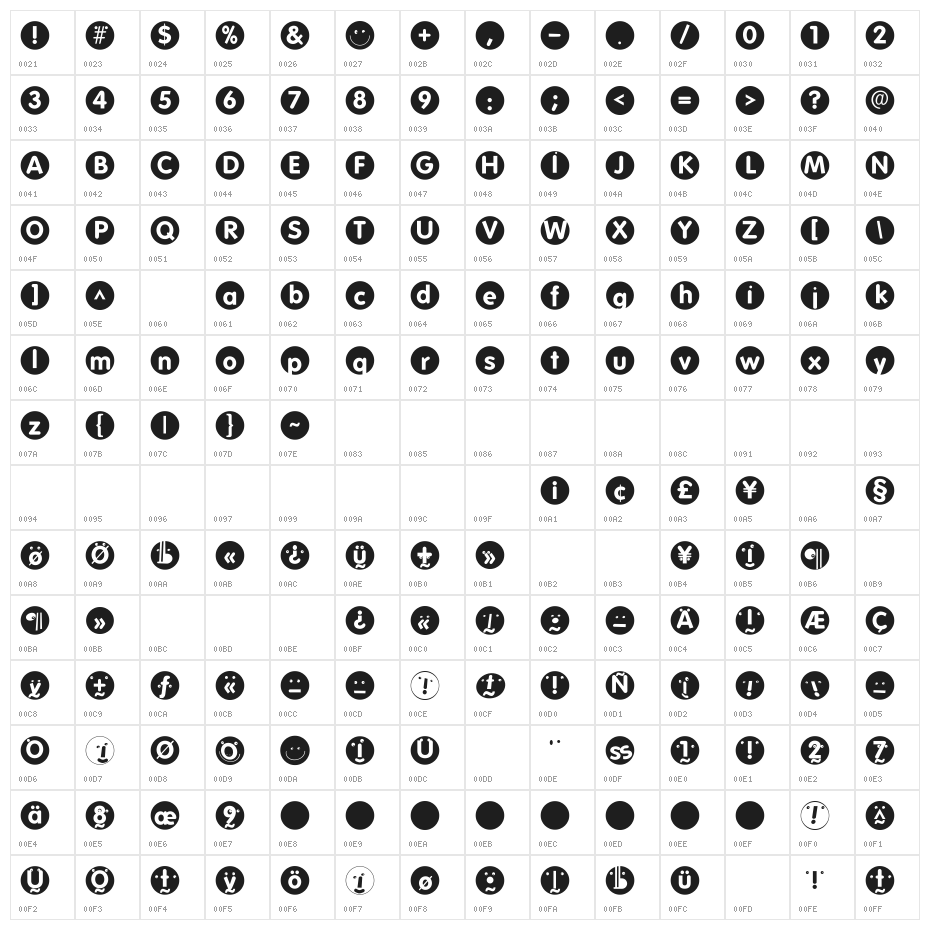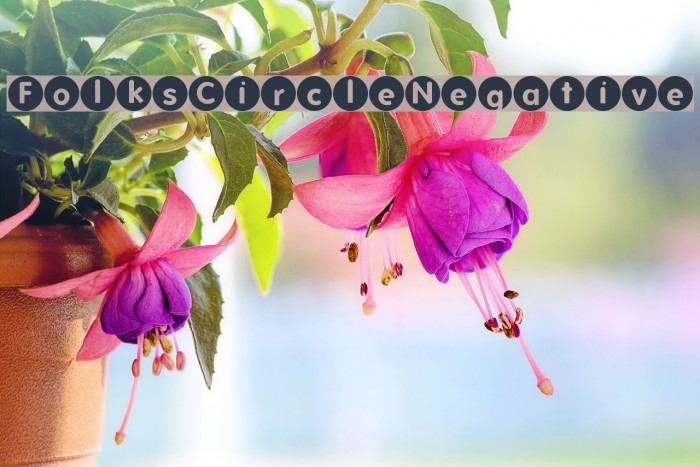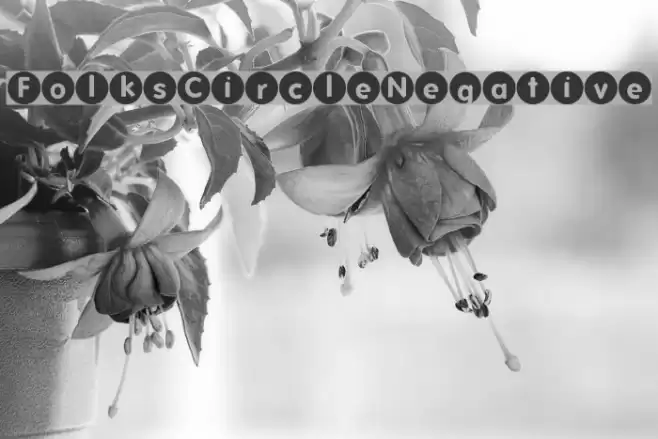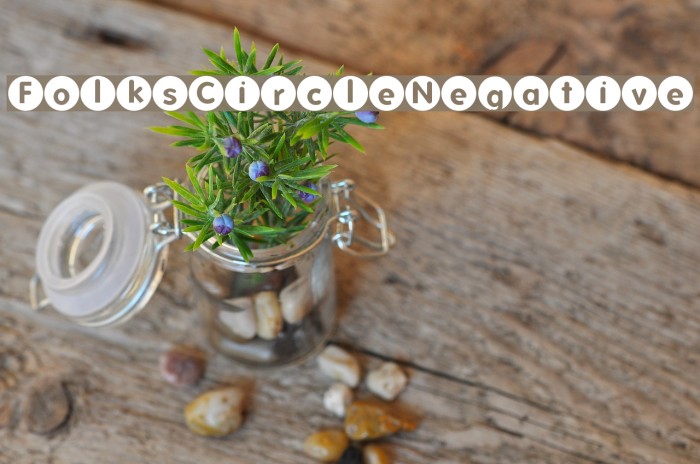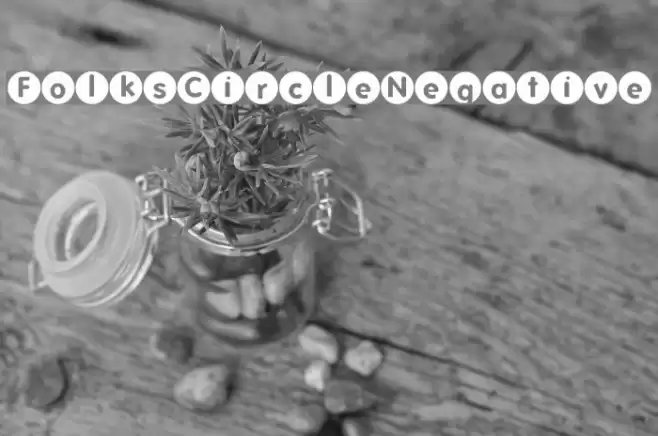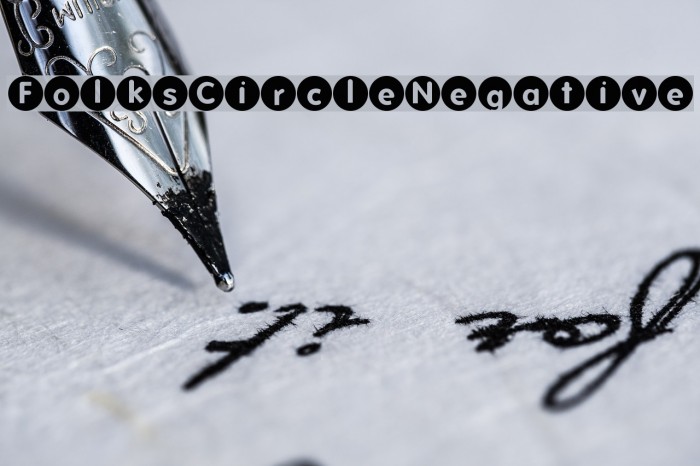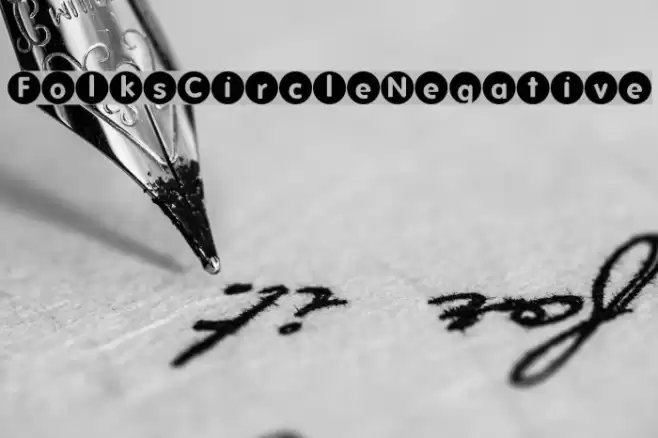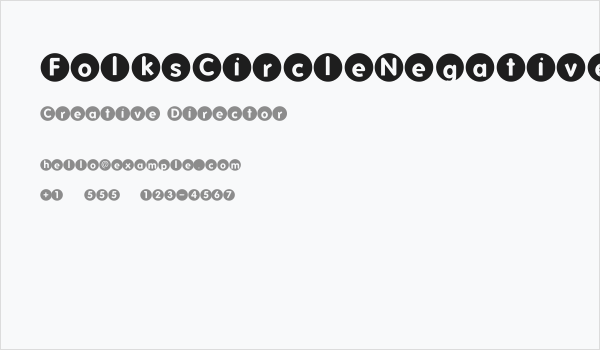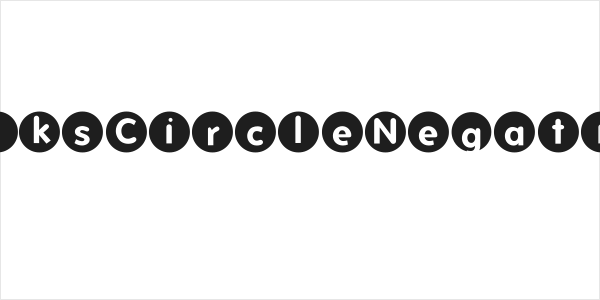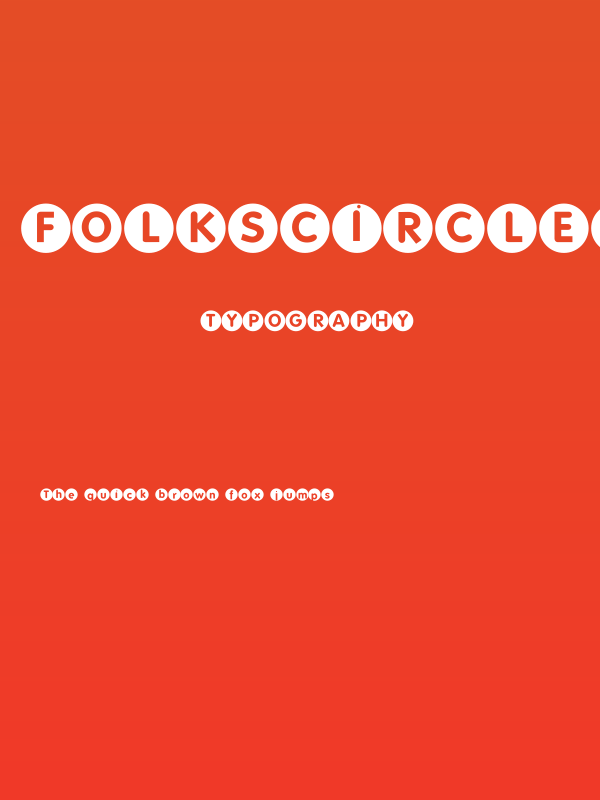
FolksCircleNegative Font
FolksCircleNegative Description
This font features bold, uppercase and lowercase letters, numbers, and special characters enclosed within solid black circles. The characters are white, creating a striking contrast against the black background. The style is playful and modern, with a clean and geometric appearance. The font is highly legible due to its simple, sans-serif design, making it suitable for various creative projects. The circular background adds a unique touch, making it stand out in any design context.
| Use Case | Logos, Posters, Branding |
| Proposed Projects | Ideal for logos, posters, and branding materials that require a modern and playful touch. |